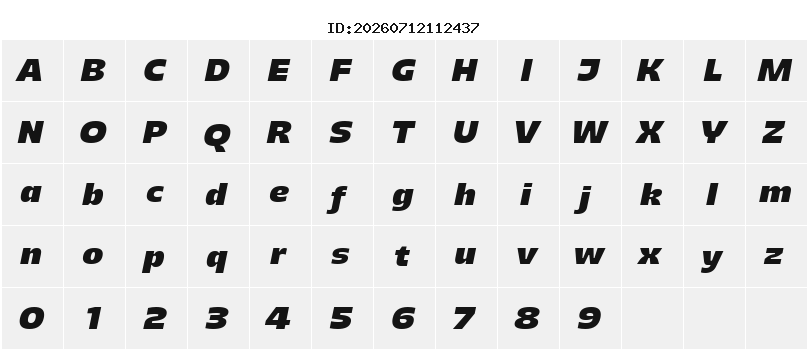
Majoris Preview
• Font Name: Majoris
• Full Font Name: Majoris Italic
• PostScript Name: Majoris Italic
• Designer: Bernd Montag
About Majoris.ttf
Majoris.ttf is a modern, elegant sans-serif font designed for ultimate readability and visual harmony. Perfect for branding, headlines, web design, and print materials.